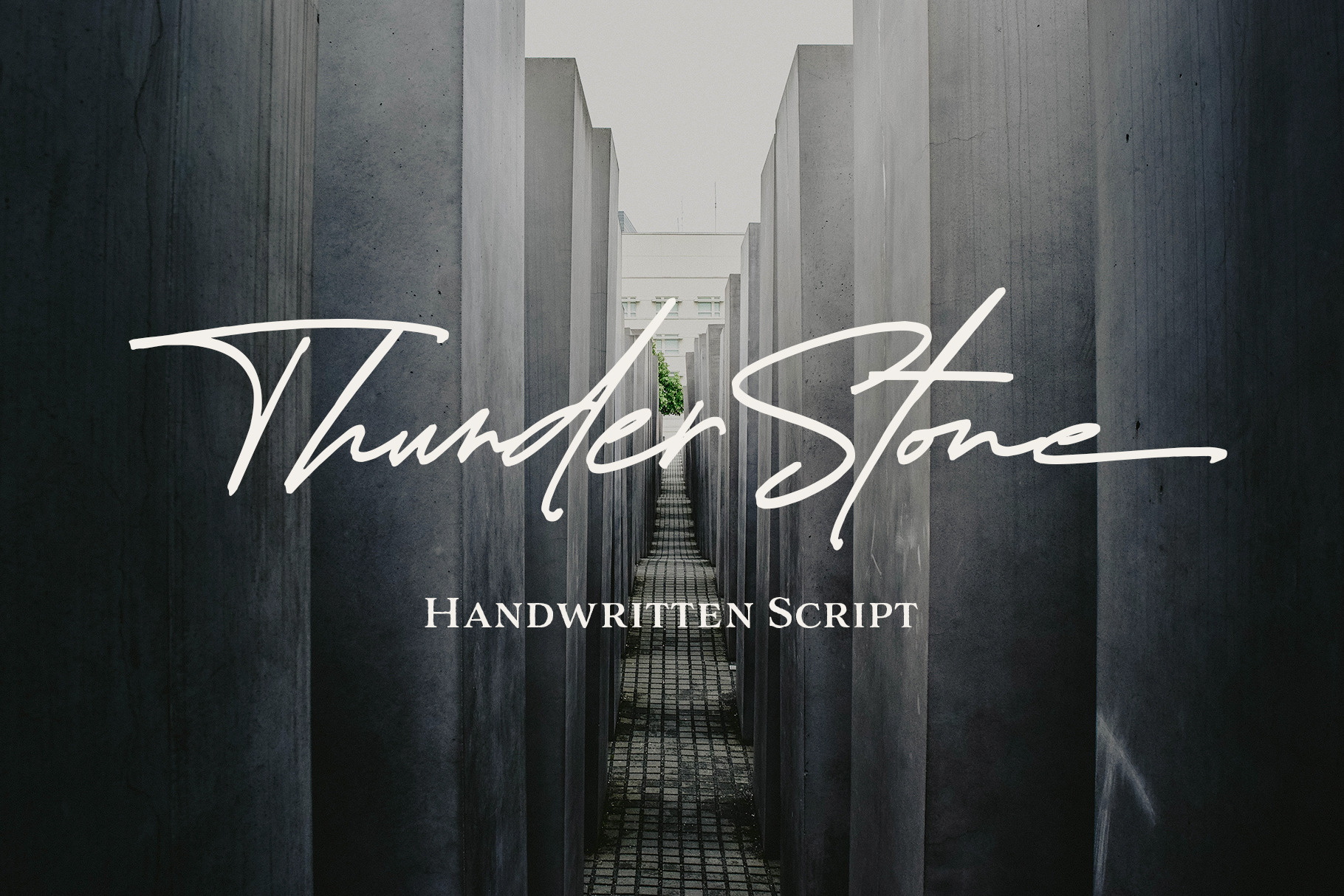
Thunder Stone Font
Thunder Stone is a handwriting signatures script, with typographic harmony for your professional design projects, including; logos, branding, magazines, blog posts, social media, quotes, advertisements & product designs.